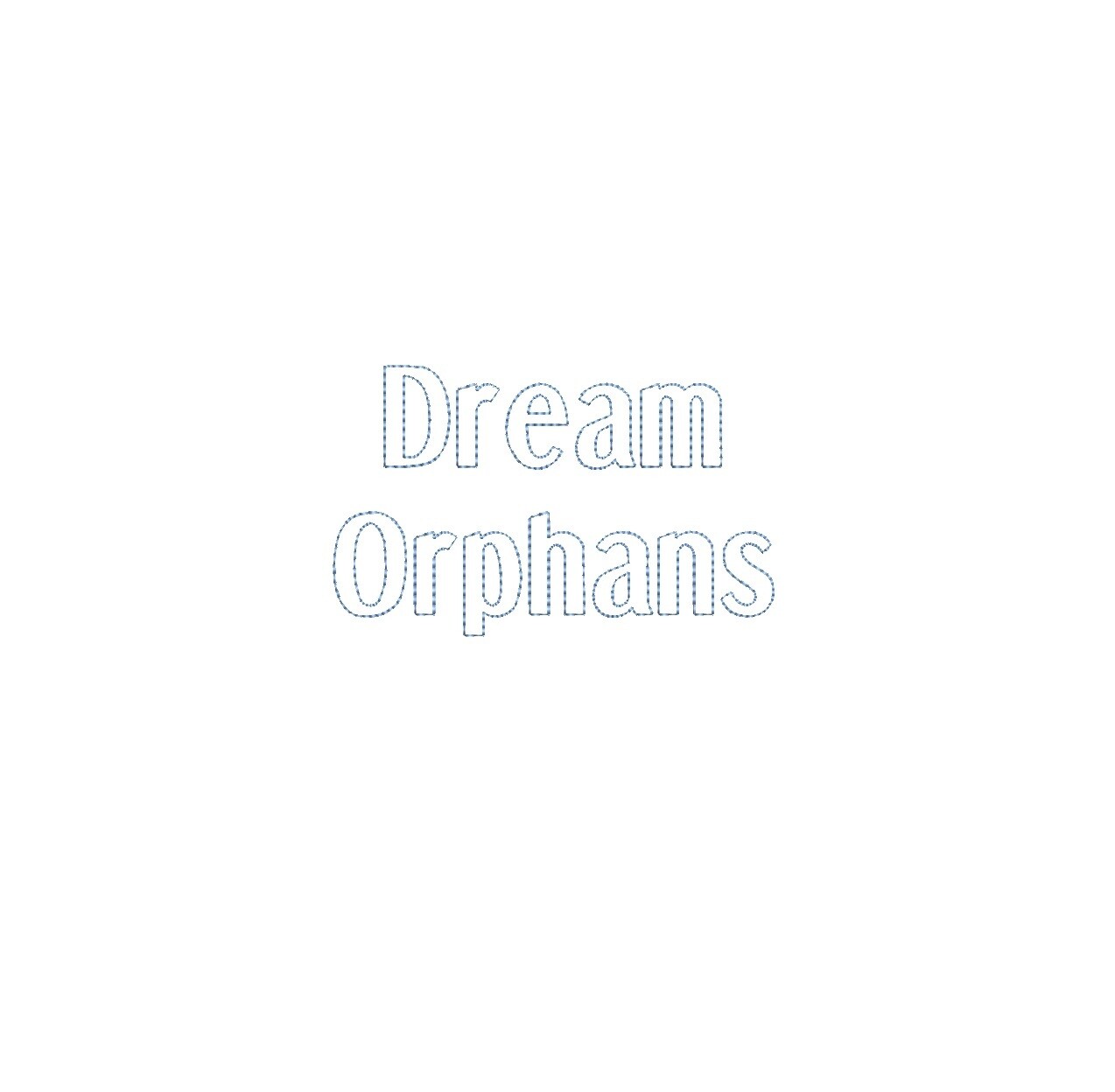
Elevate your embroidery with the Dream Orphans Bean Stitch Outline ESA font. Crafted for compatibility with Wilcom Studio e4.5.6 and Hatch 3 versions and beyond, this font adds a touch of charm and uniqueness to your designs. The intricate bean outline style imparts depth and character, making it ideal for monograms, labels, and decorative elements. Seamlessly integrate and achieve precise stitching, enhancing your embroidery projects. Explore endless creative potential in Wilcom Studio and Hatch software using the Dream Orphans Bean Outline ESA font. Elevate your designs and make a statement today with this exceptional font.